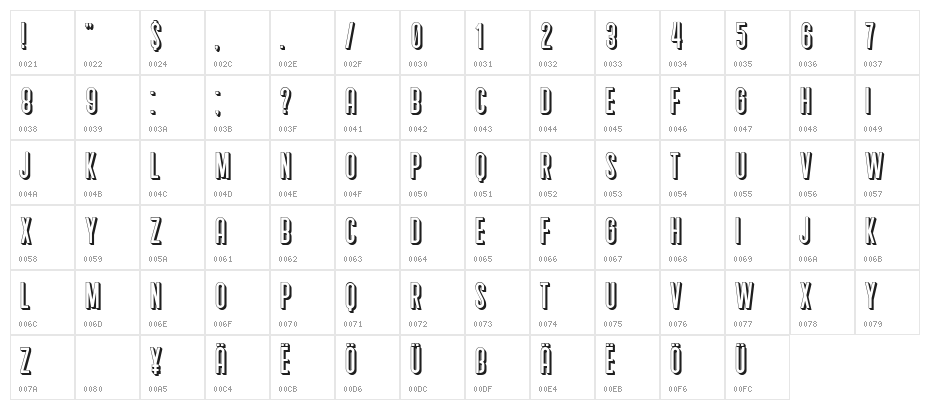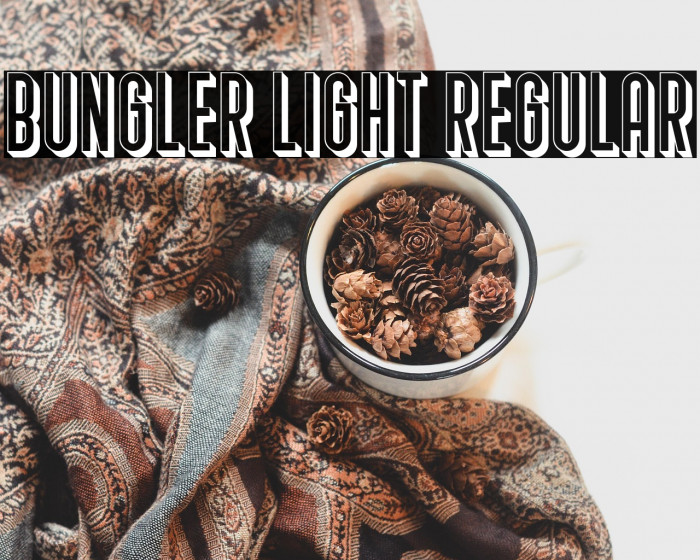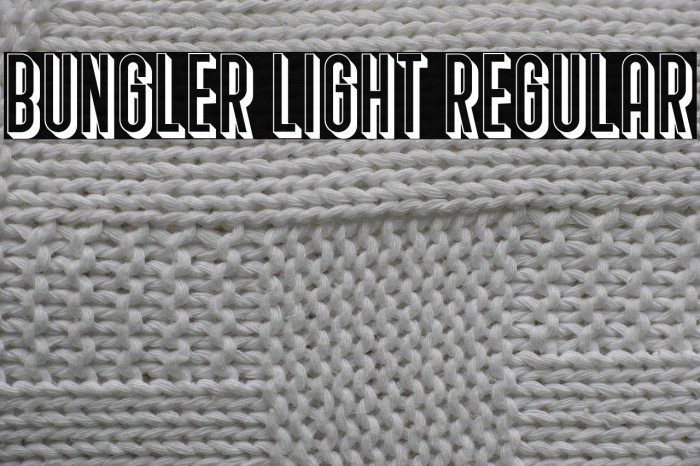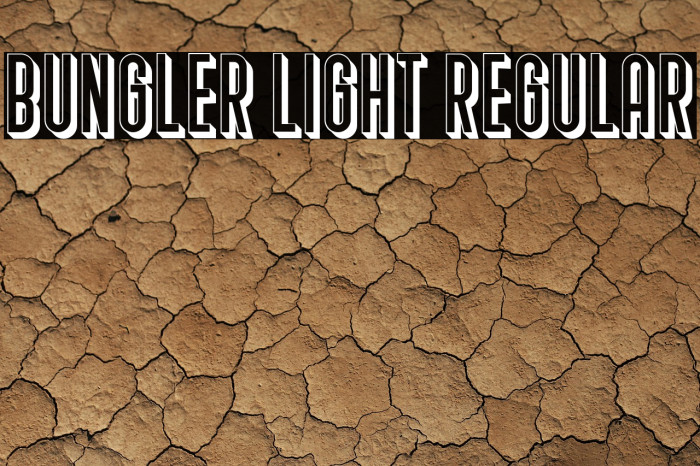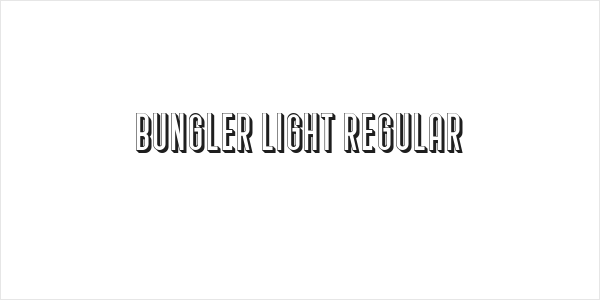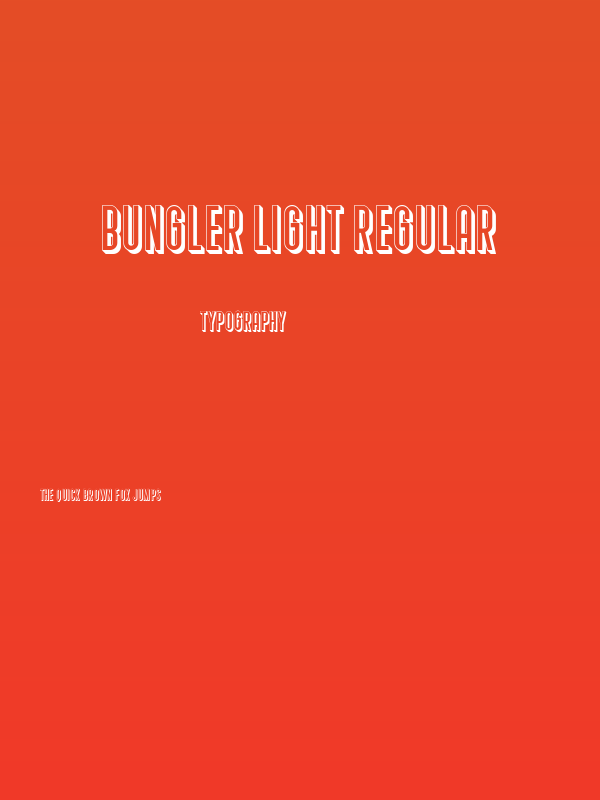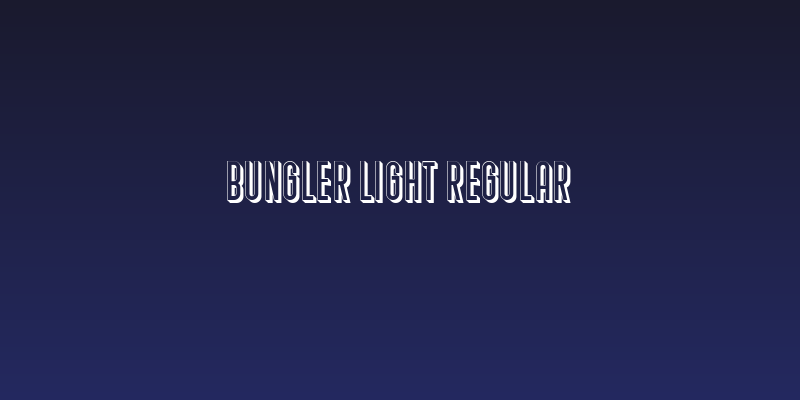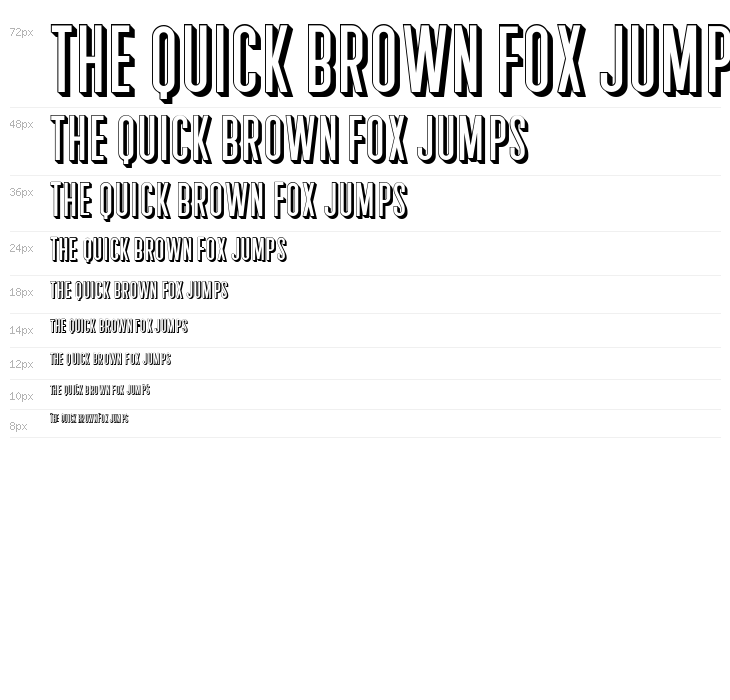
Bungler Light Regular Font
Bungler Light Regular Description
This font features a bold, three-dimensional appearance with a shadow effect that gives it a striking and dynamic look. The uppercase letters are tall and narrow, creating a sense of height and elegance. The font maintains a consistent stroke width, contributing to its clean and modern aesthetic. The characters are well-defined with sharp edges, enhancing readability while adding a touch of sophistication. The numbers and special characters follow the same design principles, ensuring uniformity across all elements. This font is perfect for making a statement in any design project.